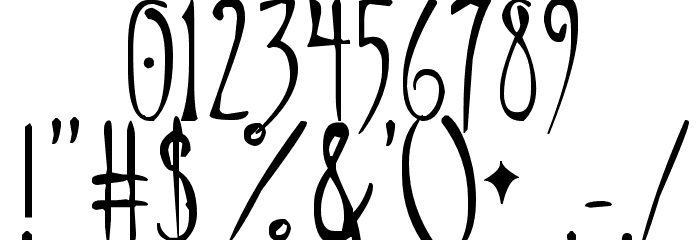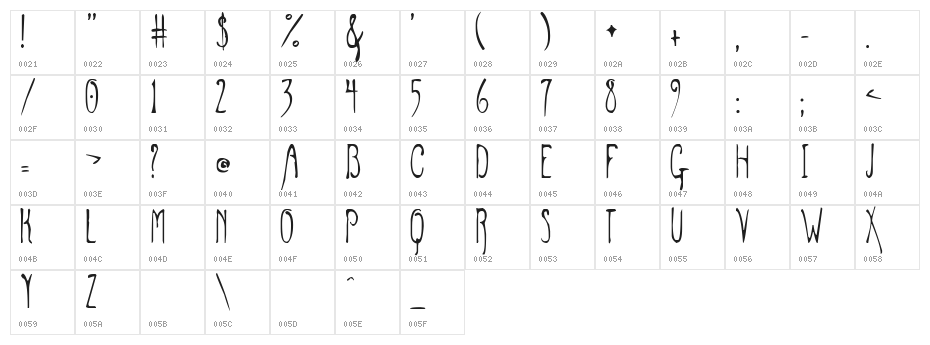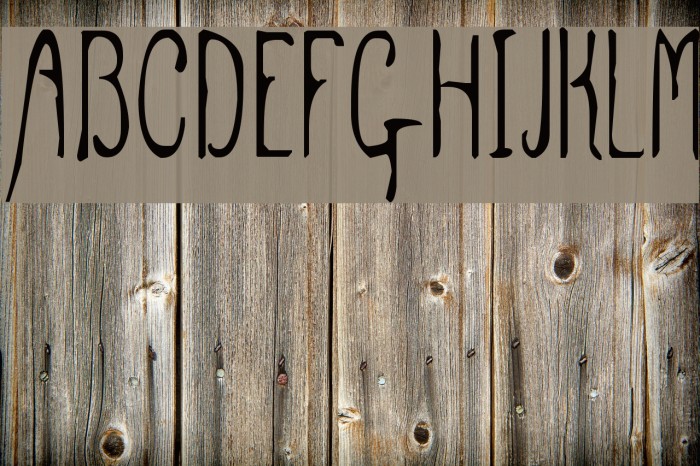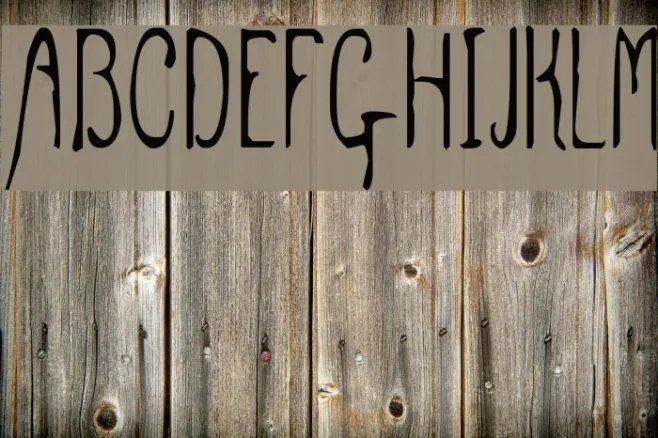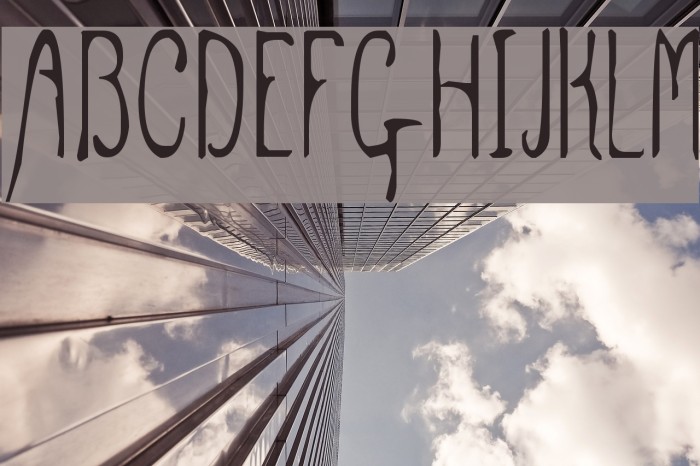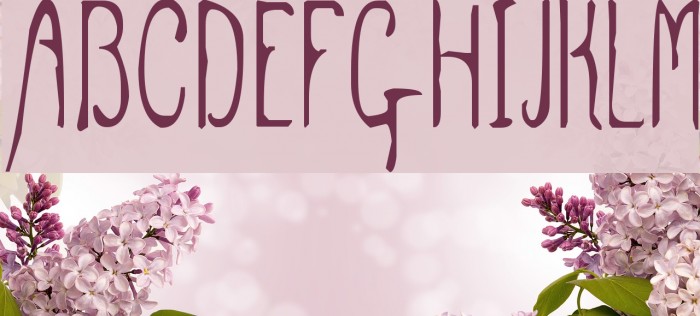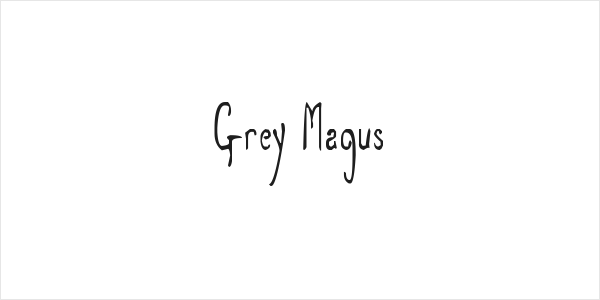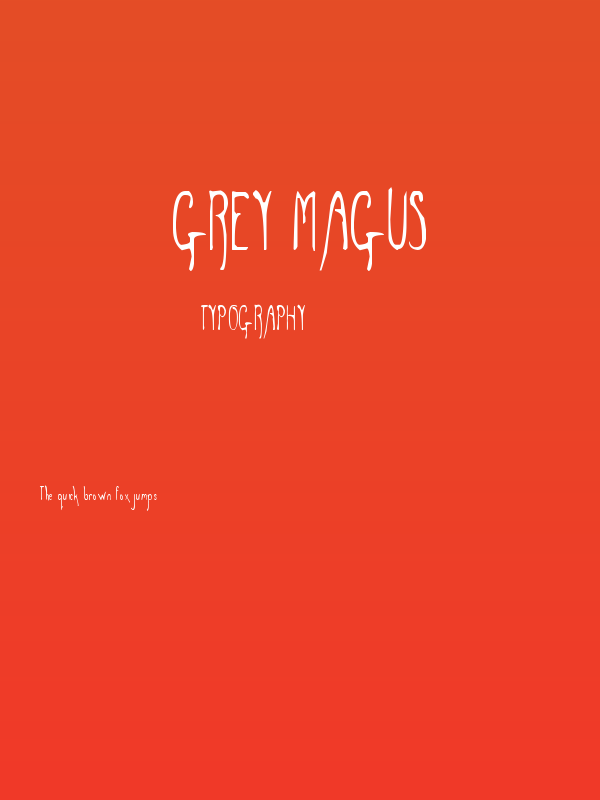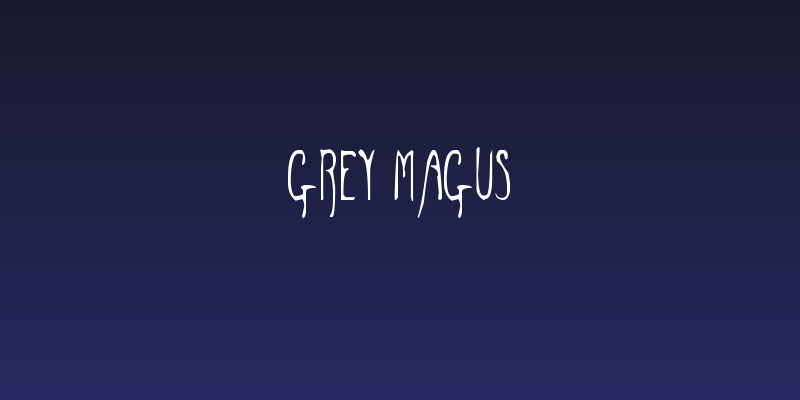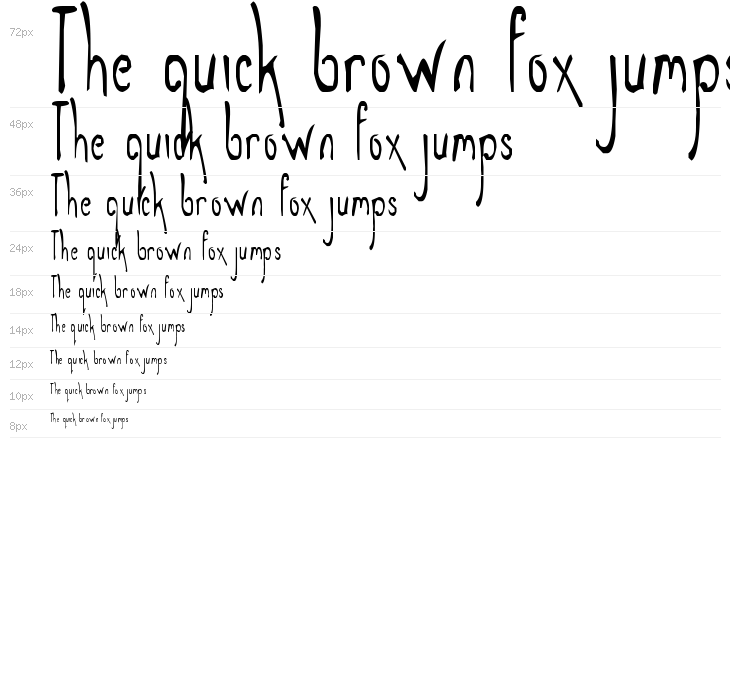
Grey Magus Font
Grey Magus Description
This font features a unique and artistic style, characterized by elongated and slightly irregular letterforms that give it a whimsical and hand-drawn appearance. The uppercase letters are tall and narrow, with varying stroke widths that add a dynamic quality. The lowercase letters maintain this playful aesthetic, with some characters having distinctive loops and curves. The numerals are equally expressive, with a consistent design that complements the alphabet. Special characters are creatively styled, enhancing the font's overall artistic flair. This font is ideal for projects that require a touch of creativity and individuality.
| Overall Style | Artistic, Whimsical |
| Use Case | Headlines, Artistic projects, Branding |
| Proposed Projects | Ideal for creative projects such as posters, invitations, and artistic branding. |